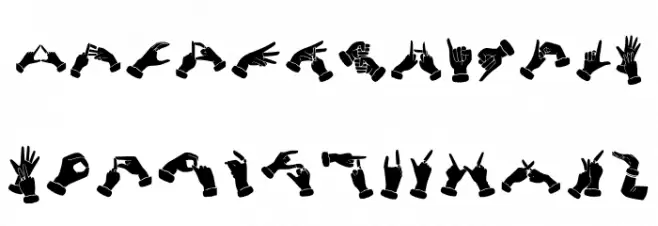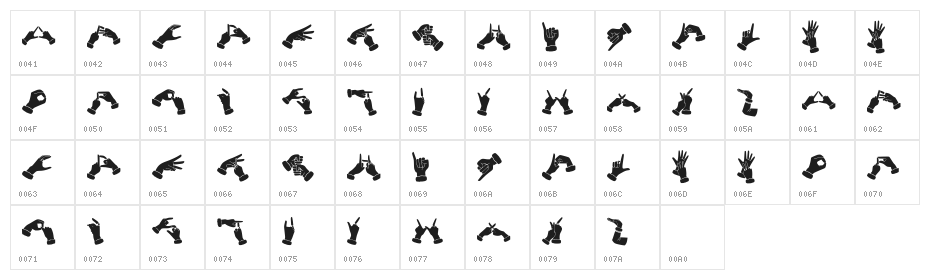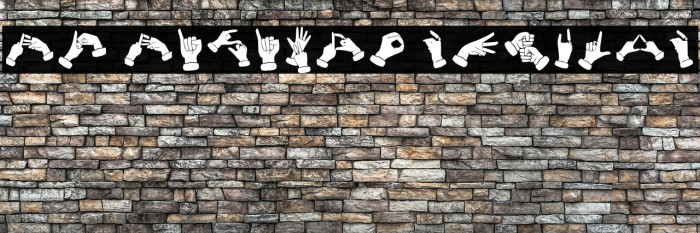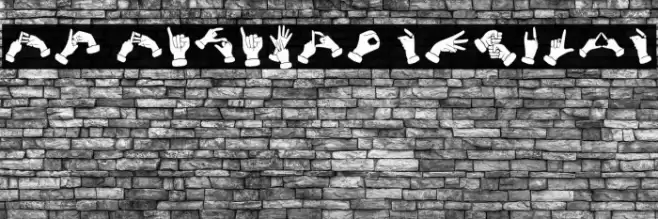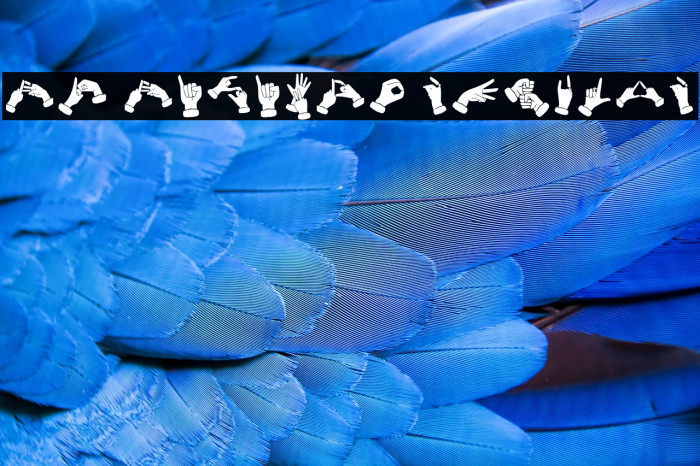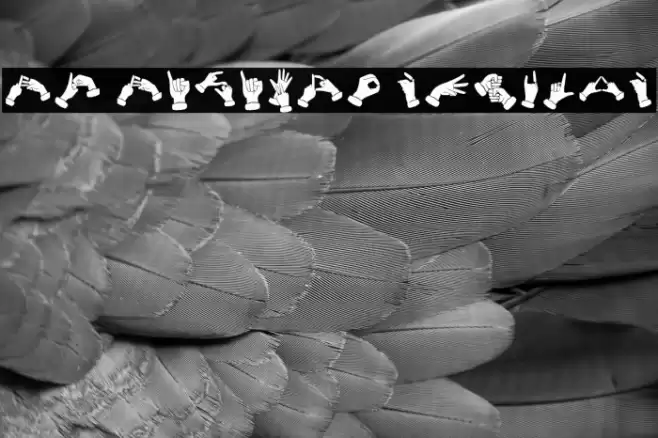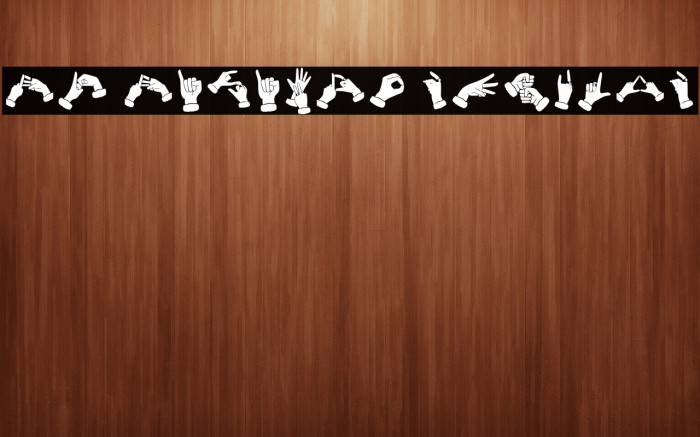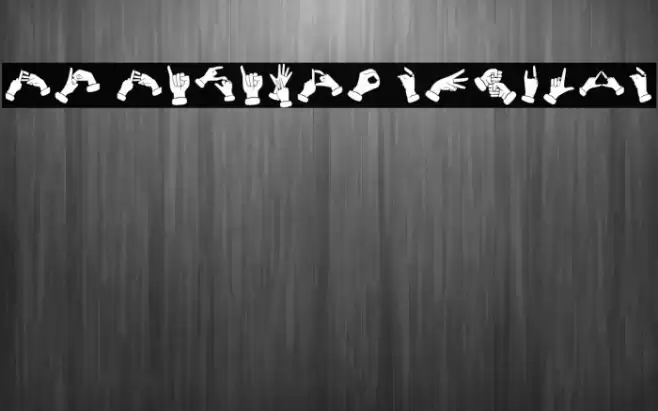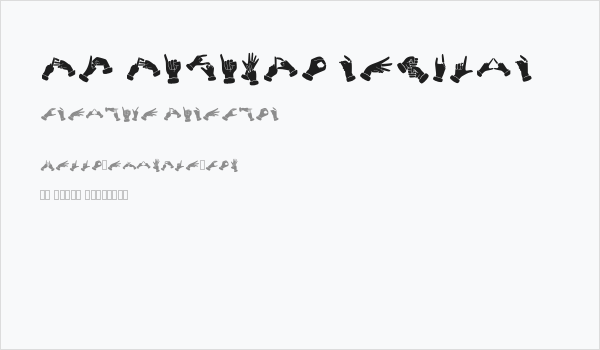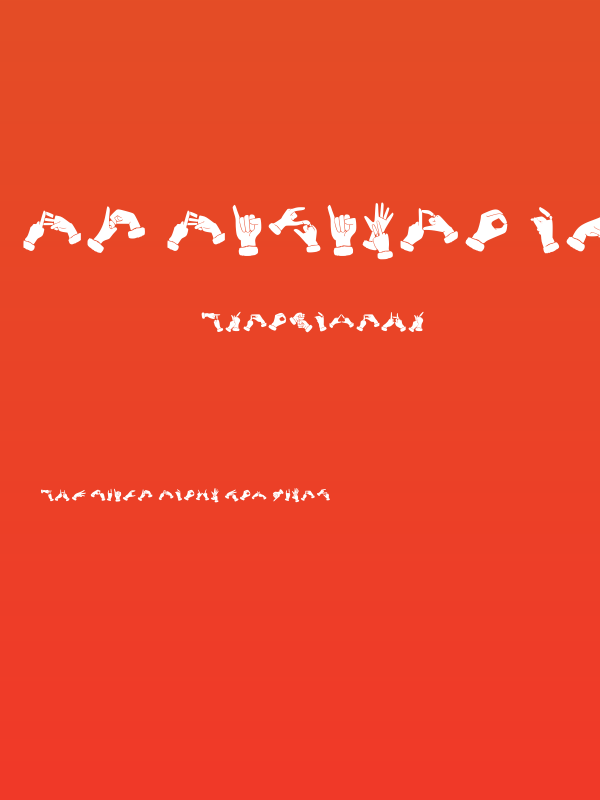
Bk Bisindo Regular Font
Bk Bisindo Regular Description
This is not a traditional font but rather a visual representation of hand signs, likely used for sign language or symbolic communication. Each character is depicted through a distinct hand gesture, capturing the essence of manual communication. The design is intricate, with each hand shape clearly defined to convey specific meanings. This style is highly specialized, focusing on accessibility and communication for those familiar with sign language. The characters are uniform in size and style, ensuring consistency across the set.
| Use Case | Educational materials, accessibility tools, visual communication aids. |
| Proposed Projects | Ideal for educational materials on sign language, accessibility-focused designs, or communication tools for the hearing impaired. |